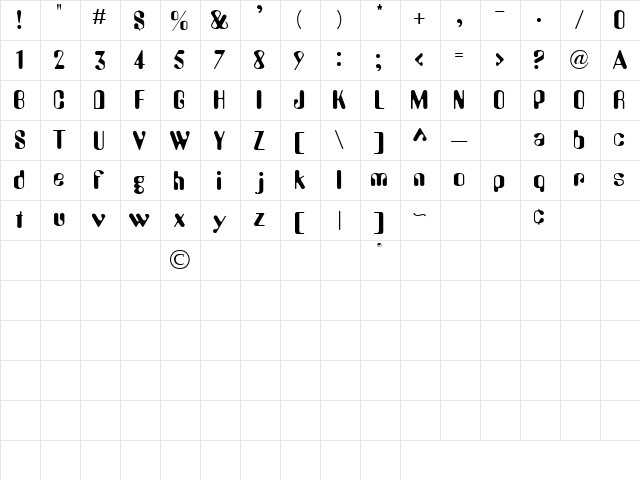
Radio 1 Regular
Design Context for Radio 1 Typeface
Radio 1 is a composed and adaptable typeface that performs quietly and consistently across a wide range of design contexts.